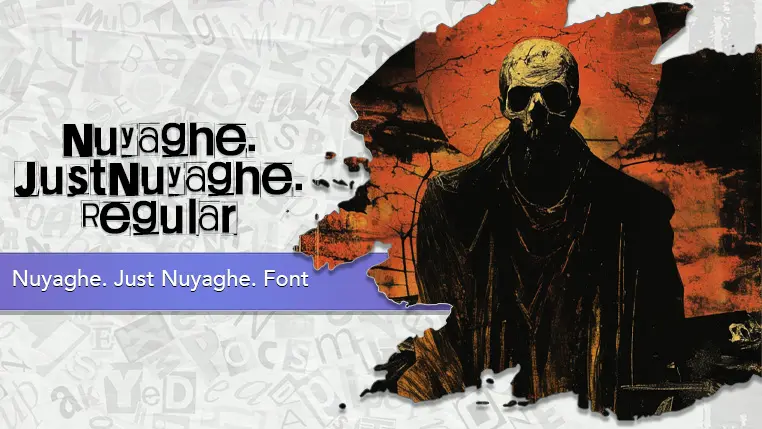
Nuyaghe. Just Nuyaghe. Font
The Nuyaghe. Just Nuyaghe. font family may be ideal for you if you enjoy working on an artistic design project. The lively, expressive look of this typeface, which was created by Juha Korhonen, makes it ideal for Punk/Grunge/Underground Aesthetics, "Ransom Note" Themed Designs, Protest Graphics/Activist Messaging, Horror/Thriller Genres and other light-hearted visual projects.
Regular, Five, Four, Three, Two are the five primary font styles of the Nuyaghe. Just Nuyaghe. font family. You may build dynamic, visually appealing text layouts with the distinct flair that each style offers. With crisp, readable lines and a relaxed tone.